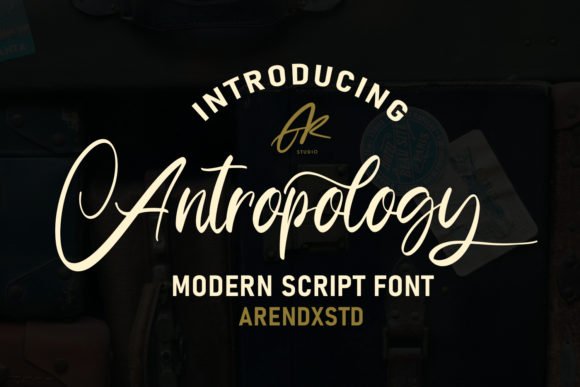
Discover the Art of Storytelling with Anthropology Font
As designers, we’ve all been there – staring at a blank page, struggling to find the perfect font to bring our creative vision to life. But what if I told you there’s a font that can transport you to a world of whimsy and wonder, where every letter is a brushstroke of personality? It’s in those moments of uncertainty that we find the perfect font, and for me, that font is Anthropology.
Anthropology Font is a delightful, handwritten script that’s as versatile as it is charming. With its gorgeous swashes and ligatures, it’s the perfect tool for designers looking to add a touch of personality to their work. Whether you’re crafting Instagram posts or creating calligraphy scripts for DIY projects, Anthropology Font is the perfect companion to bring your ideas to life.
Key Features of Anthropology Font
- Font Family: Anthropology Font is a unique, handwritten script font designed to evoke a sense of elegance and sophistication.
- Language Support: Supports a wide range of languages, including Latin, Cyrillic, and Greek scripts, making it suitable for international designs.
- Unique Characteristics: Features a distinctive, handwritten feel with varying line widths, subtle flourishes, and organic textures, adding a touch of personality to designs.
Anthropology Font Review
I recently had the chance to work with the Anthropology Font, and I must say it’s an interesting combination of modern and vintage elements. ✨ One thing I really appreciate is its versatility – it works well for both digital and print applications, making it a great choice for designers who want a single font to cover multiple bases.
- ✨ The font’s unique letterforms and subtle imperfections give it a handmade feel that’s perfect for adding a touch of personality to your designs.
- ✨ The font’s x-height is relatively high, making it easy to read, even at smaller sizes.
- ✨ Anthropology Font also includes a wide range of languages, making it a great choice for global branding and marketing materials.
However, there are a few limitations that I think are worth mentioning. ⚠️ The font’s weight is somewhat inconsistent, with the light weights feeling a bit too light and the bold weights feeling a bit too heavy. Additionally, some of the letterforms can feel a bit cluttered, which may not be ideal for more straightforward or modern designs.
Overall, I think the Anthropology Font is a solid choice for designers who want a unique, vintage-inspired font with a bit of personality. While it may not be perfect, its versatility and range of languages make it a great option for many different projects.